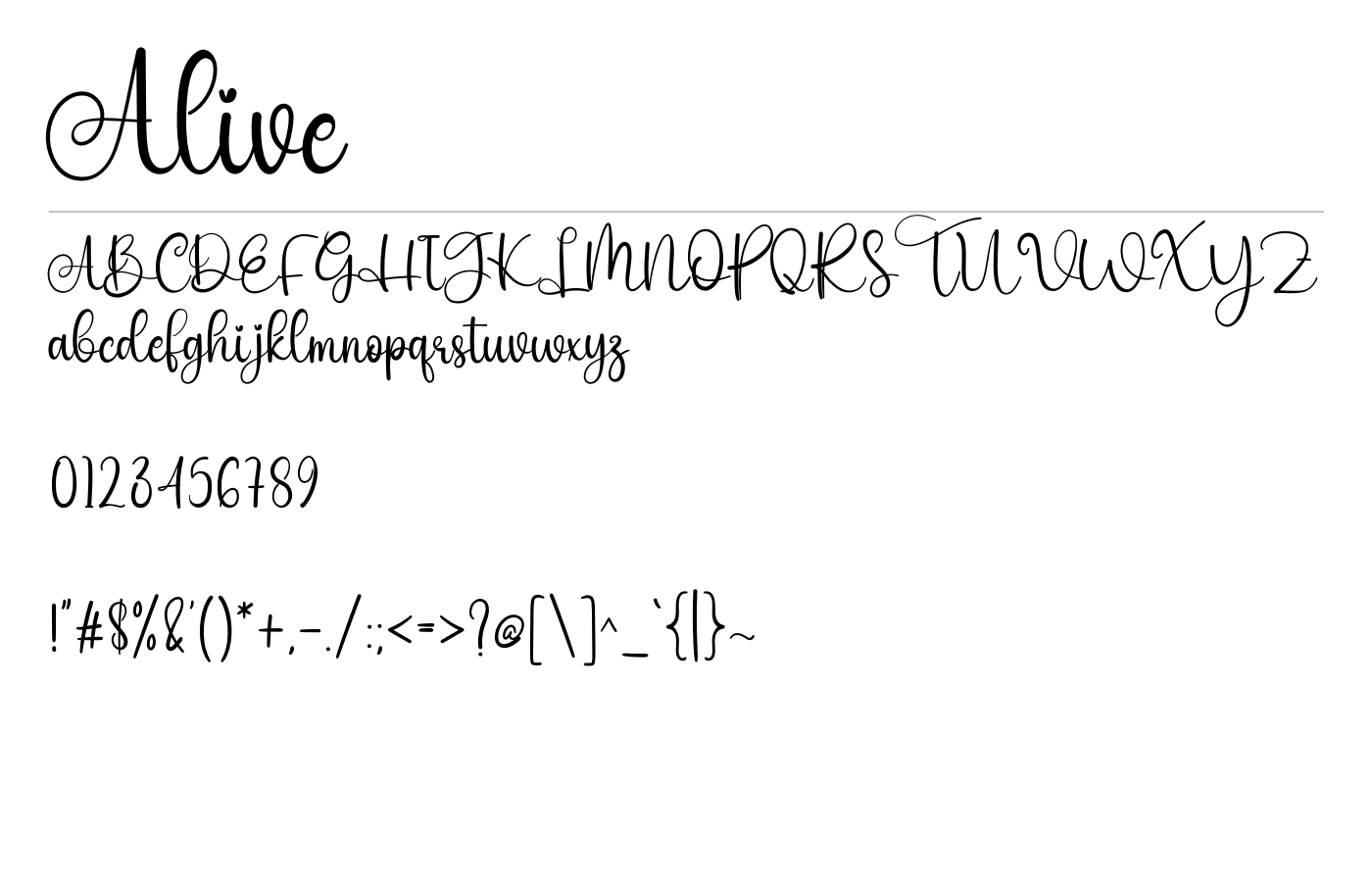
Alive Font is a charming, handwritten script with slender, playful strokes and delicate loops that give it a lively, friendly personality. Its tall x-height and elegant swashes make it perfect for invitations, branding, and creative projects seeking a warm, personal touch. This font shines in uses where a casual yet stylish vibe is desired, such as greeting cards, logos, and social media designs.
Alive Font